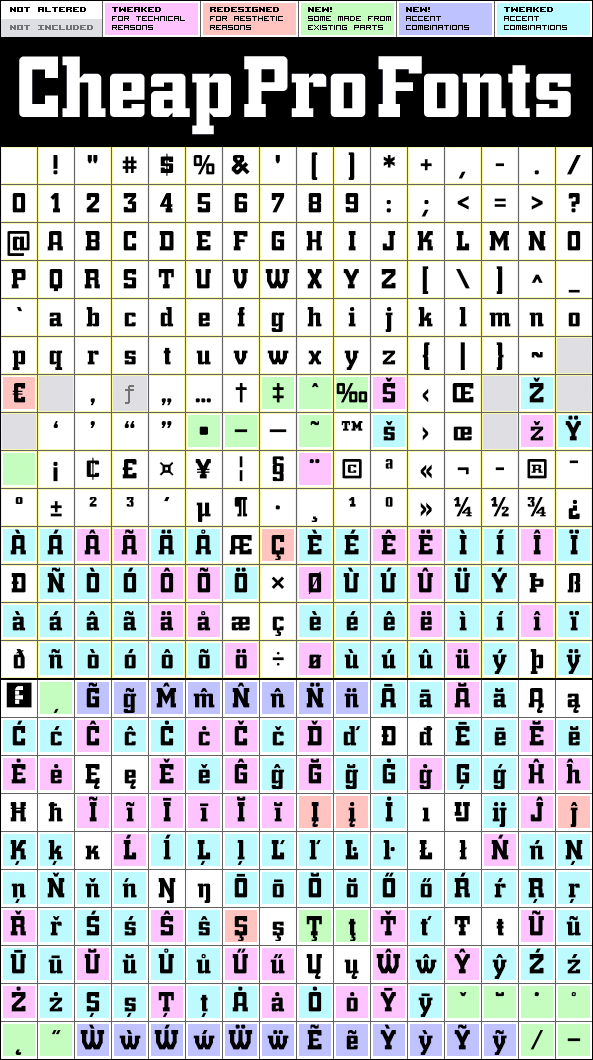
Trump Town Pro
Trump Town Pro by Roger S. Nelsson
Designer:
Roger S. Nelsson
Highlights:
376 glyphs!
(338 in original)
182 class kernpairs
= 20296 kerning pairs
(none in original)
Description:
Based on and adapted from Georg Trumps classic from 1930.
This font was originally made with FontStruct but this Pro version have cleaned up outlines, quite a few tweaked letterforms (because of FontStructs limitations ;) , corrected spacing, and added kerning and hinting... It has also been scaled - and some additional diacritics added.
Trump Town Pro is a professionally reworked font that contains an extended character set for setting text in 65 languages requiring more than the basic A-Z!
Trump Town Pro